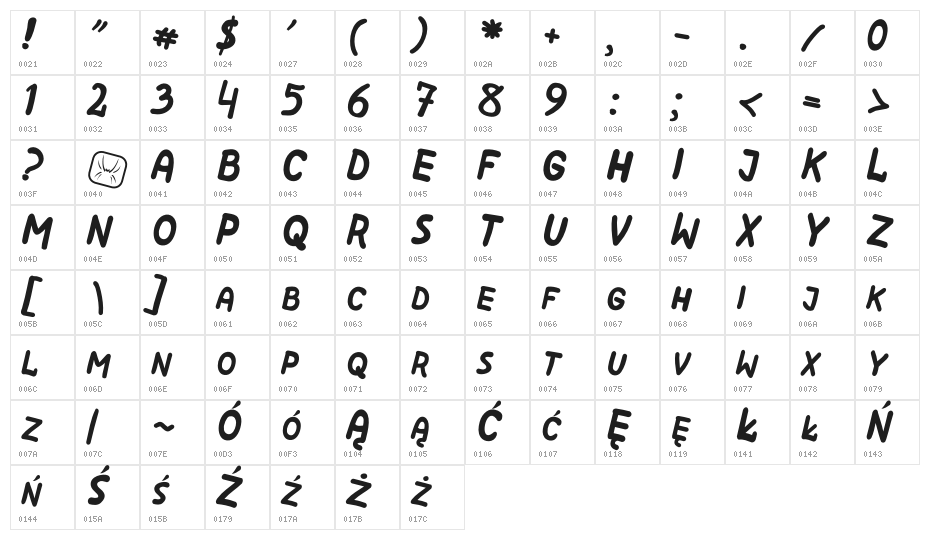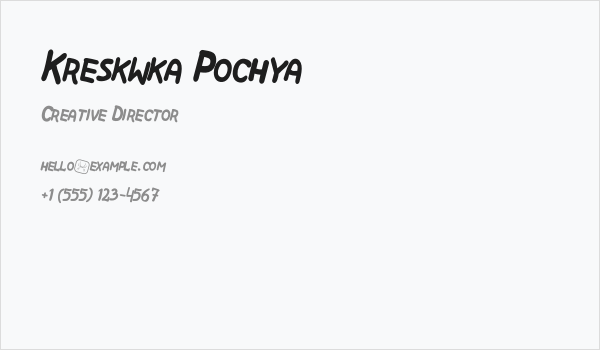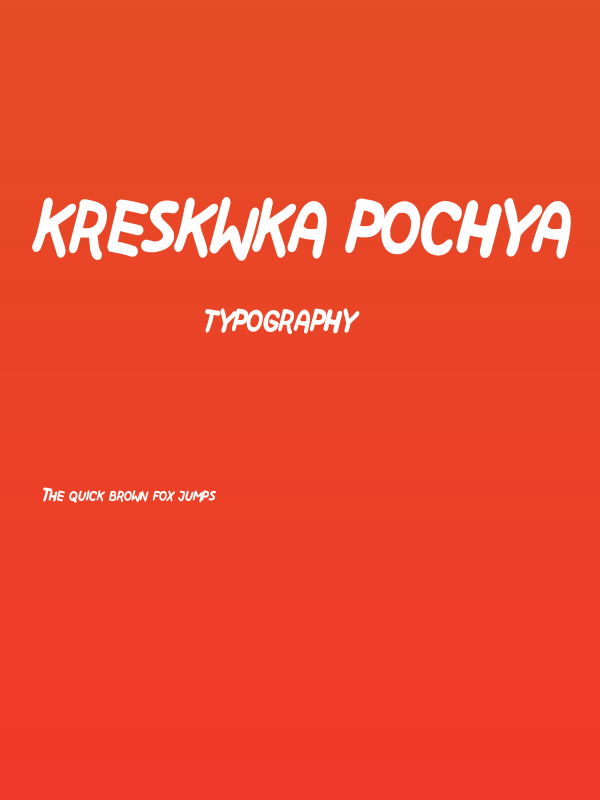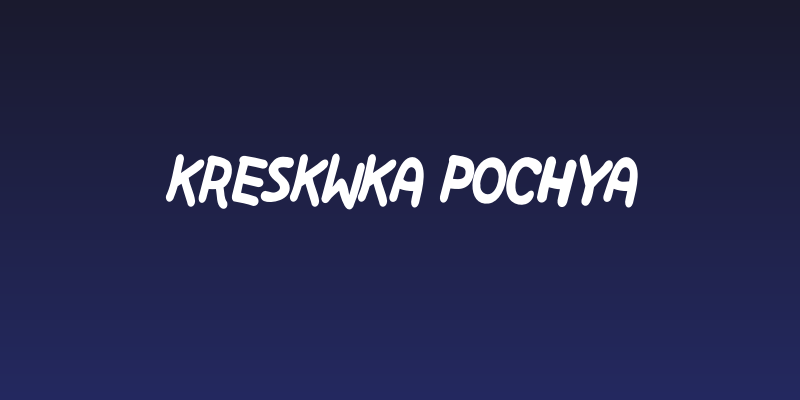
Kreskwka Pochya Font
Kreskwka Pochya Description
This playful and bold font features a handwritten style with smooth, rounded edges and a consistent stroke width. The characters are slightly slanted, giving a dynamic and energetic feel. The uppercase and lowercase letters maintain a uniform appearance, while the numerals and special characters integrate seamlessly with the overall design. Its casual and friendly aesthetic makes it suitable for a variety of creative applications. The font's legibility is enhanced by its clear and distinct letterforms, making it ideal for eye-catching displays.
| Proposed Projects | Great for children's books, comic strips, playful branding, and informal invitations. |